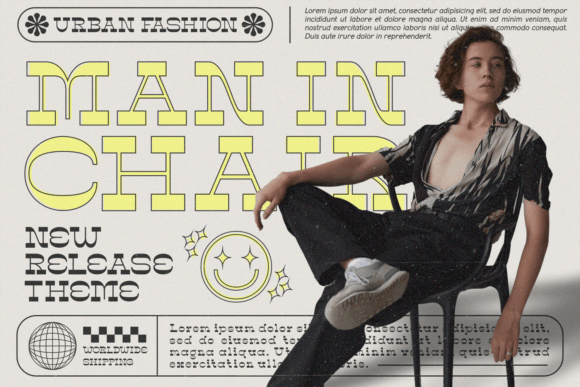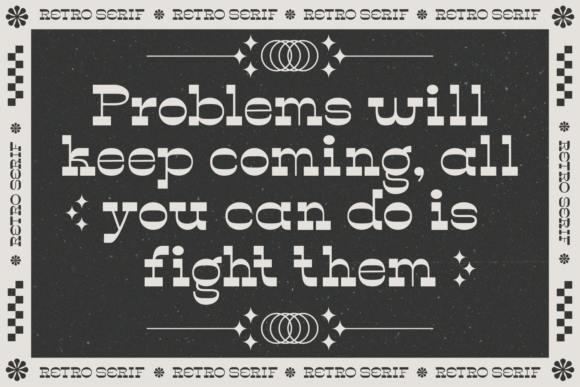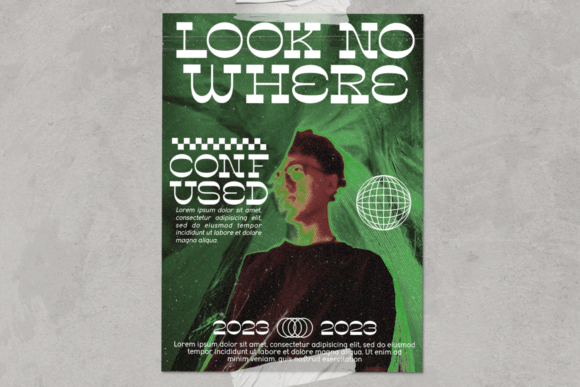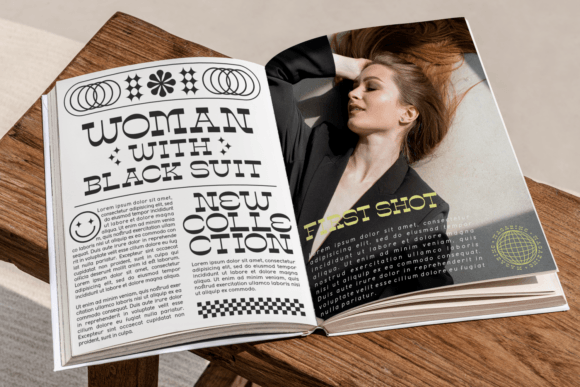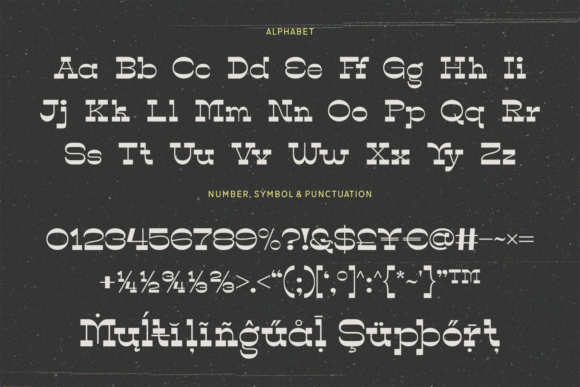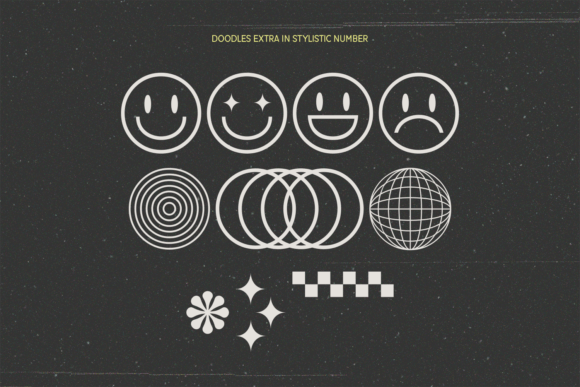
Introduction to Pines Country Font Font
Fonts play a crucial role in design, and the Pines Country Font font is a typeface that brings both character and versatility to any project. Whether you’re working on a branding project, a website, or a print design, the Pines Country Font font offers a unique style that can elevate your work.
Pines Country is a retro and stylish slab serif font that is perfect for projects that need a touch of nostalgia and vintage charm.
Its bold and chunky shapes create a sense of strength and power, while its retro and stylish design adds an element of creativity and style Ideal for branding, posters, and any project that requires a font that is both retro and stylish.
Key Features of Pines Country Font Font
Why Choose Pines Country Font Font?
The Pines Country Font font is more than just a typeface – it’s a design tool that helps you communicate your message with style and clarity. Its unique character set and versatile design make it suitable for a wide range of applications, from elegant invitations to bold headlines.
With its carefully crafted letterforms and balanced proportions, the Pines Country Font font ensures readability and visual appeal across all mediums.
What makes Pines Country Font font special?
The Pines Country Font font stands out with its unique design, exceptional readability, and versatility across various design applications.